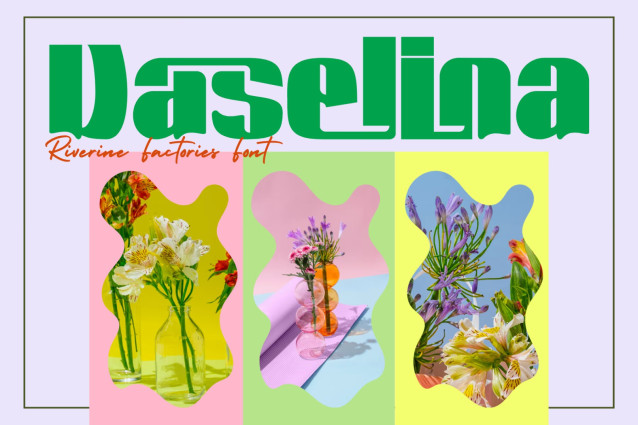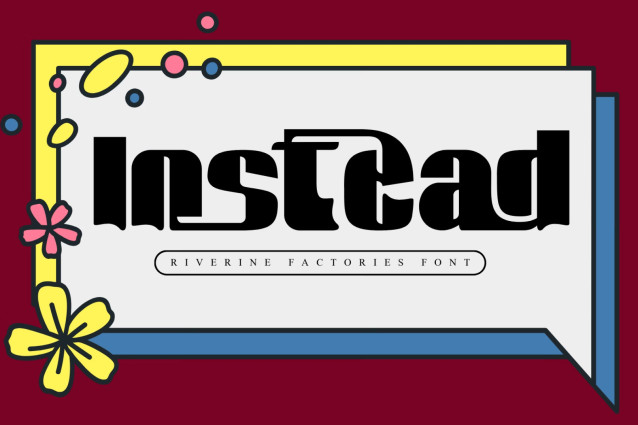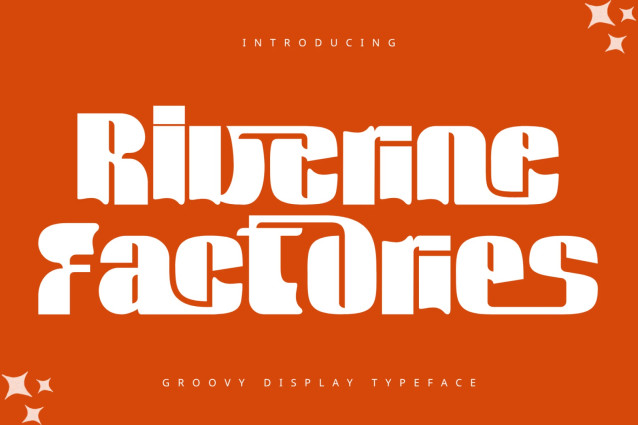
Riverine Factories – Bold Retro Font – Retro 70s Psychedelic & Wavy Chunky Display Font, retro-psychedelic display font that masterfully fuses 1970s groovy typography with organic, liquid wave serifs. Defined by its massive blocky weight, overarching stroke bridges, and scalloped fluid baselines, this typeface delivers an irresistible vintage funk charm with modern graphic impact.
Featuring custom extended strokes that loop seamlessly over adjacent characters (such as overarching v, f, and t terminals), Riverine Factories constructs bespoke, interconnected headline layouts with effortless rhythm. It is the definitive typographic choice for psychedelic album artwork, craft beer labels, retro café branding, streetwear apparel, festival posters, and bold merchandise graphics that demand a fun, nostalgic punch.